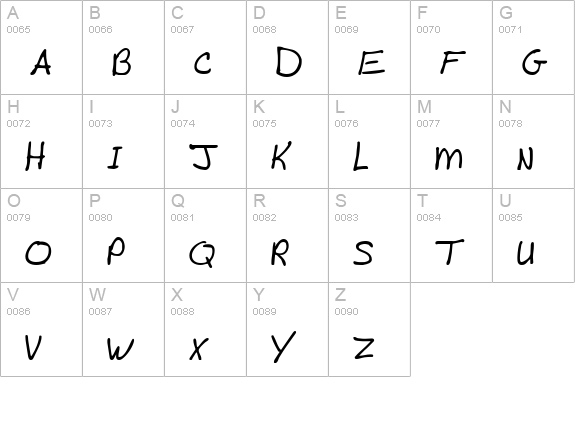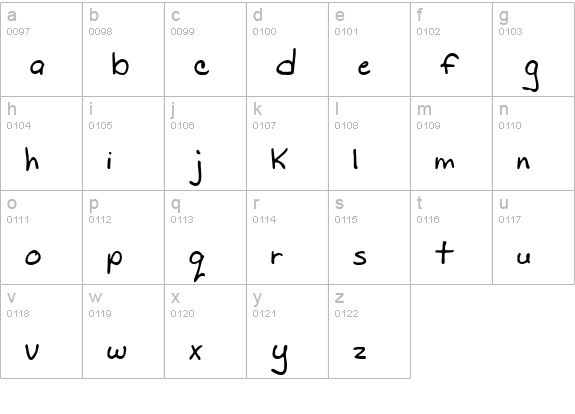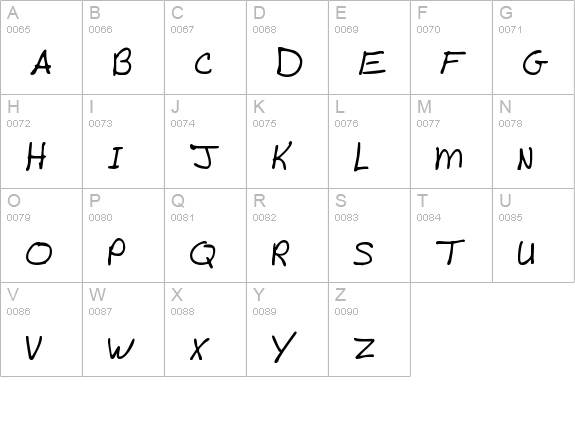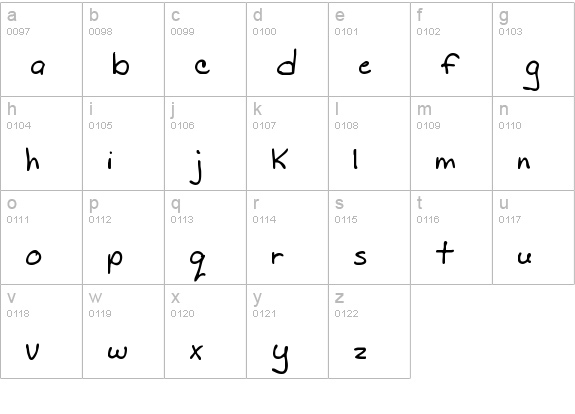
Mad's Scrawl BRK Font Details
Mad's Scrawl BRK font is a mesmerizing and unique typeface that effortlessly captures the essence of hand-drawn scrawls. With its uneven and rough edges, this font exudes a distinct charm and personality that is perfect for adding a touch of whimsy to any project. Whether you're designing a greeting card, creating a logo, or crafting a poster, Mad's Scrawl BRK font will infuse your design with a playful and creative energy. What sets Mad's Scrawl BRK font apart is not just its artistic appeal, but also its versatility. This font can adapt to a variety of design styles, from vintage and retro to modern and contemporary. Its organic and handcrafted aesthetic adds a touch of authenticity and warmth to any visual composition. And the best part? Mad's Scrawl BRK font is completely free! Yes, you read that right. This incredible font is freely available to download at FontsMarket.com. Now you can enhance your creative projects without breaking the bank. So go ahead and unleash your imagination with Mad's Scrawl BRK font - the possibilities are endless!